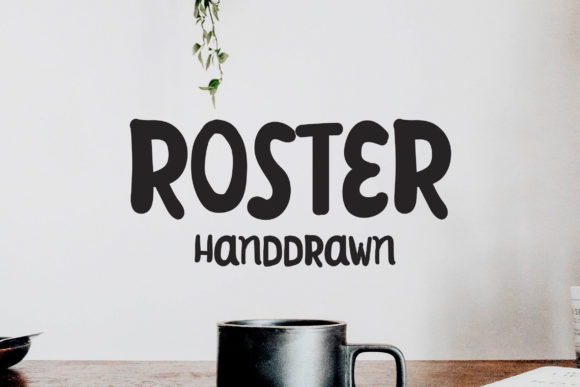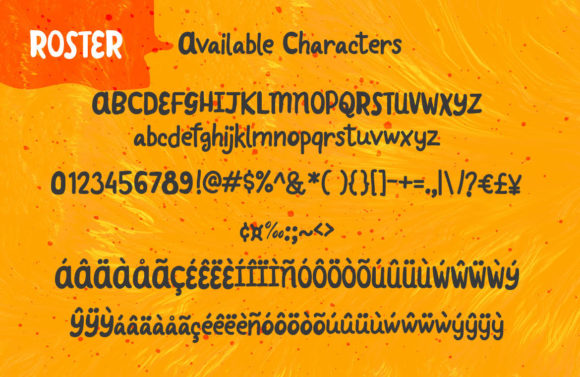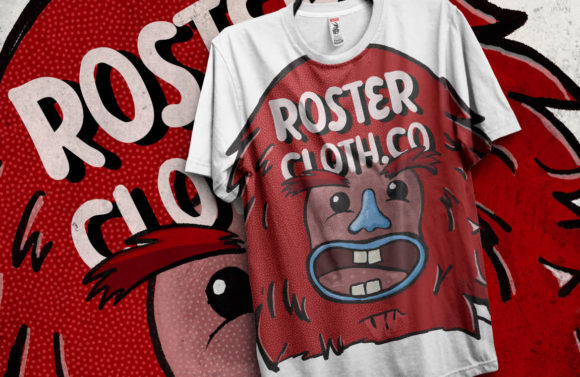
Roster Font
About Roster Font
Roster is a cute and simple paint brushed handwritten font. Whether you’re looking for fonts for Instagram or calligraphy scripts for DIY projects, this font will turn any creative idea into a true piece of art!